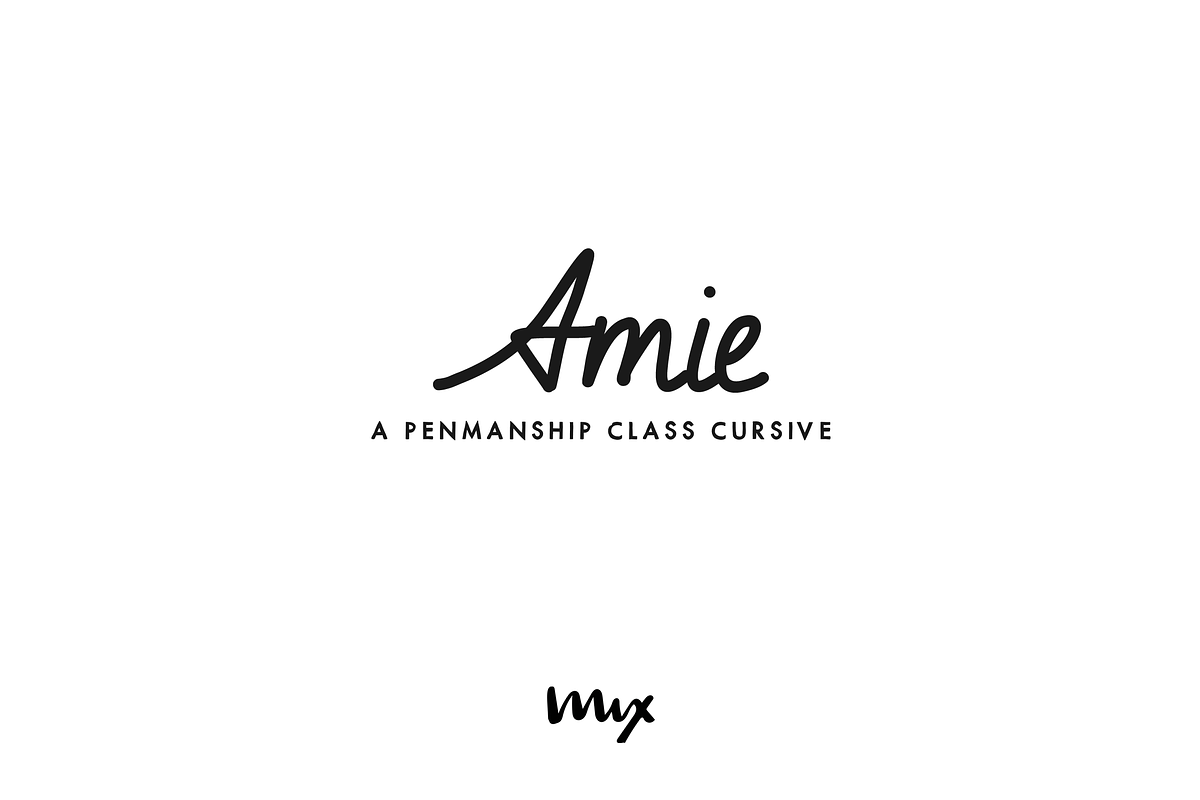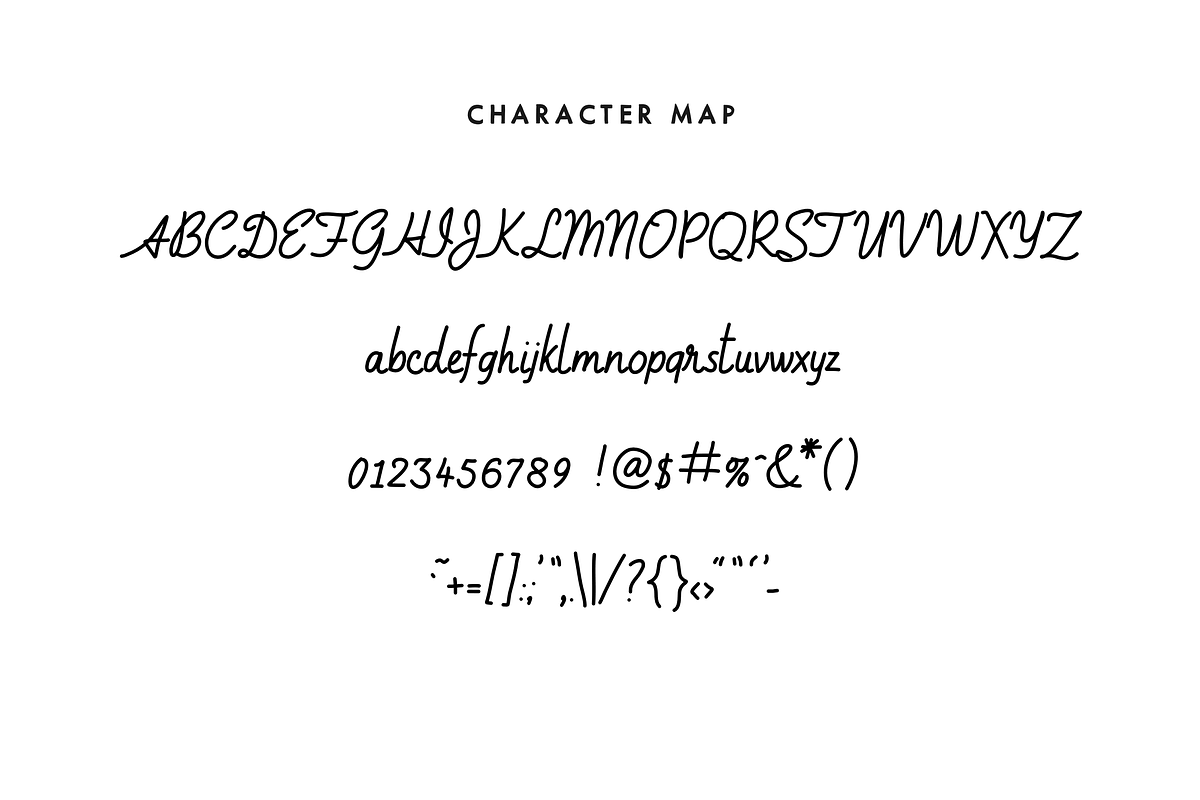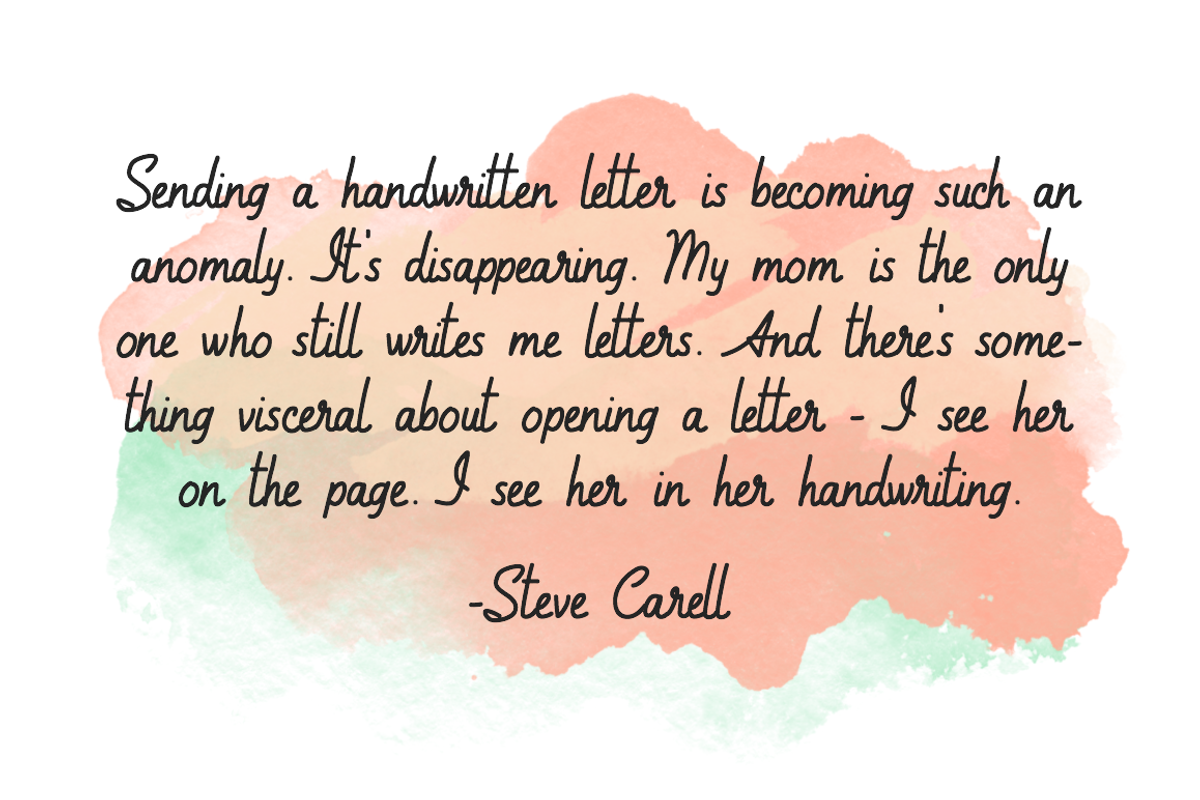
Amie — A Penmanship Class Cursive
Amie — A Penmanship Class Cursive by Mix Fonts is a font selected for branding, posters, packaging, typography.
Why Amie — A Penmanship Class Cursive is worth a look
Amie — A Penmanship Class Cursive by Mix Fonts fits naturally into Branding, posters, packaging, typography.